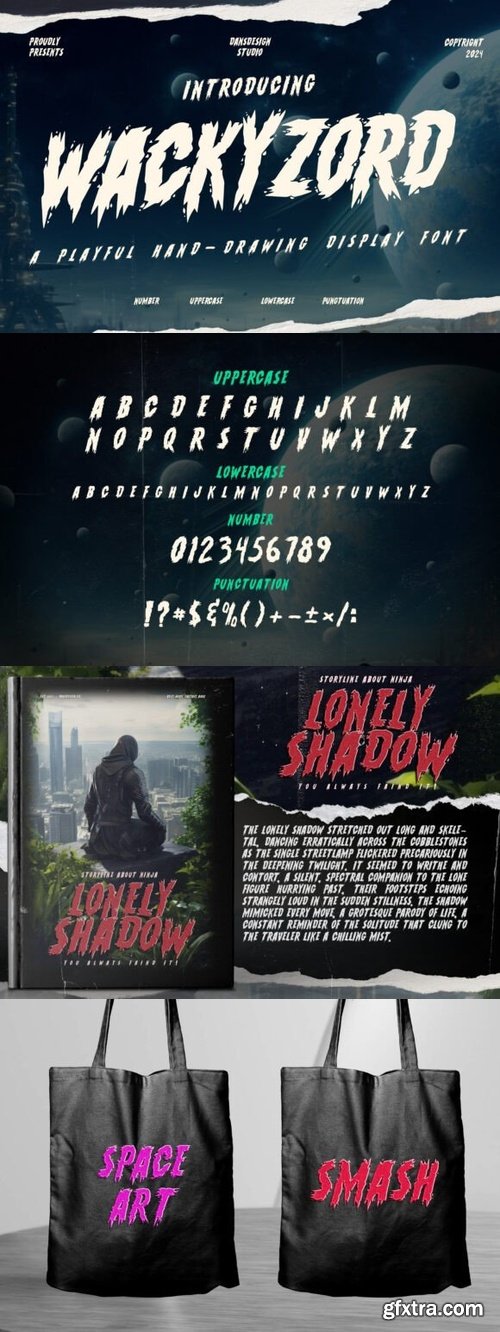
CreativeMarket - Wackyzord Marker Brush Y2k Graffiti
- Wackyzord is a bold and energetic hand-drawn display font with chaotic, jagged edges that scream personality. Inspired by comic book action and otherworldly adventures, this font is perfect for sci-fi posters, gaming graphics, bold headlines, and eye-catching branding. It’s weird, it’s wild, and it’s built to stand out.